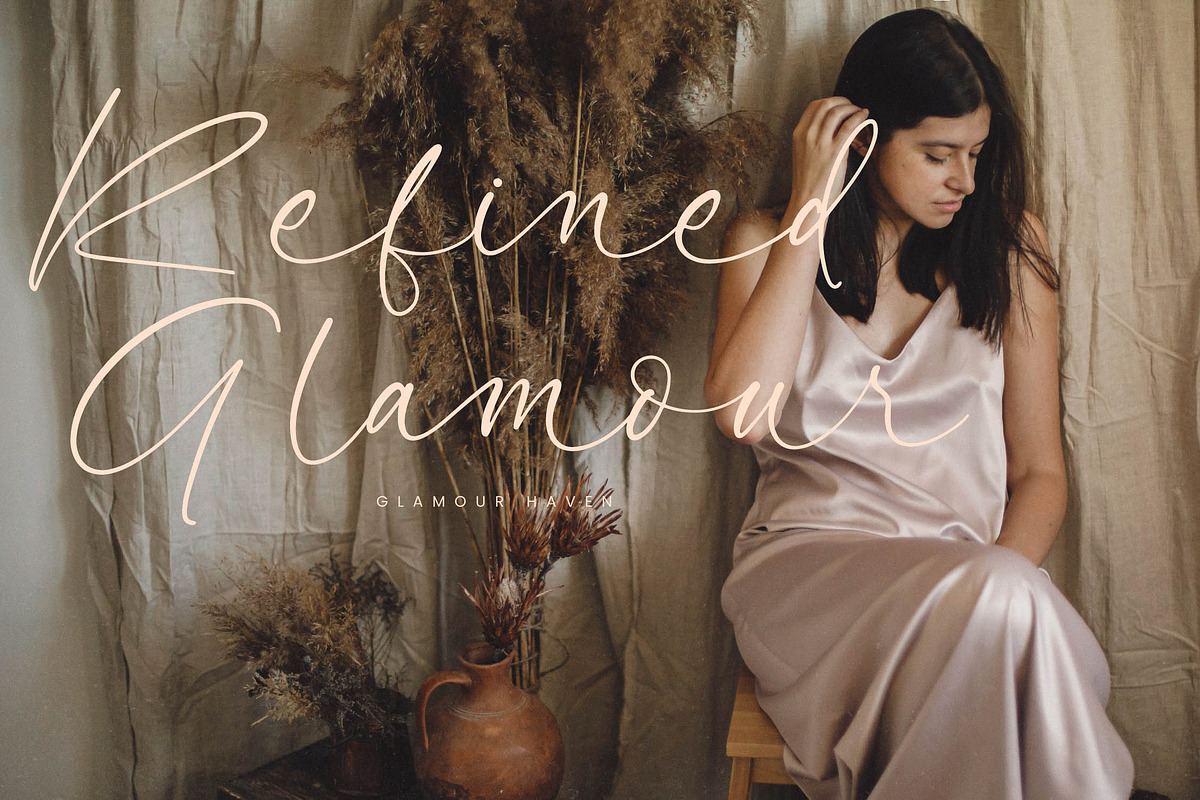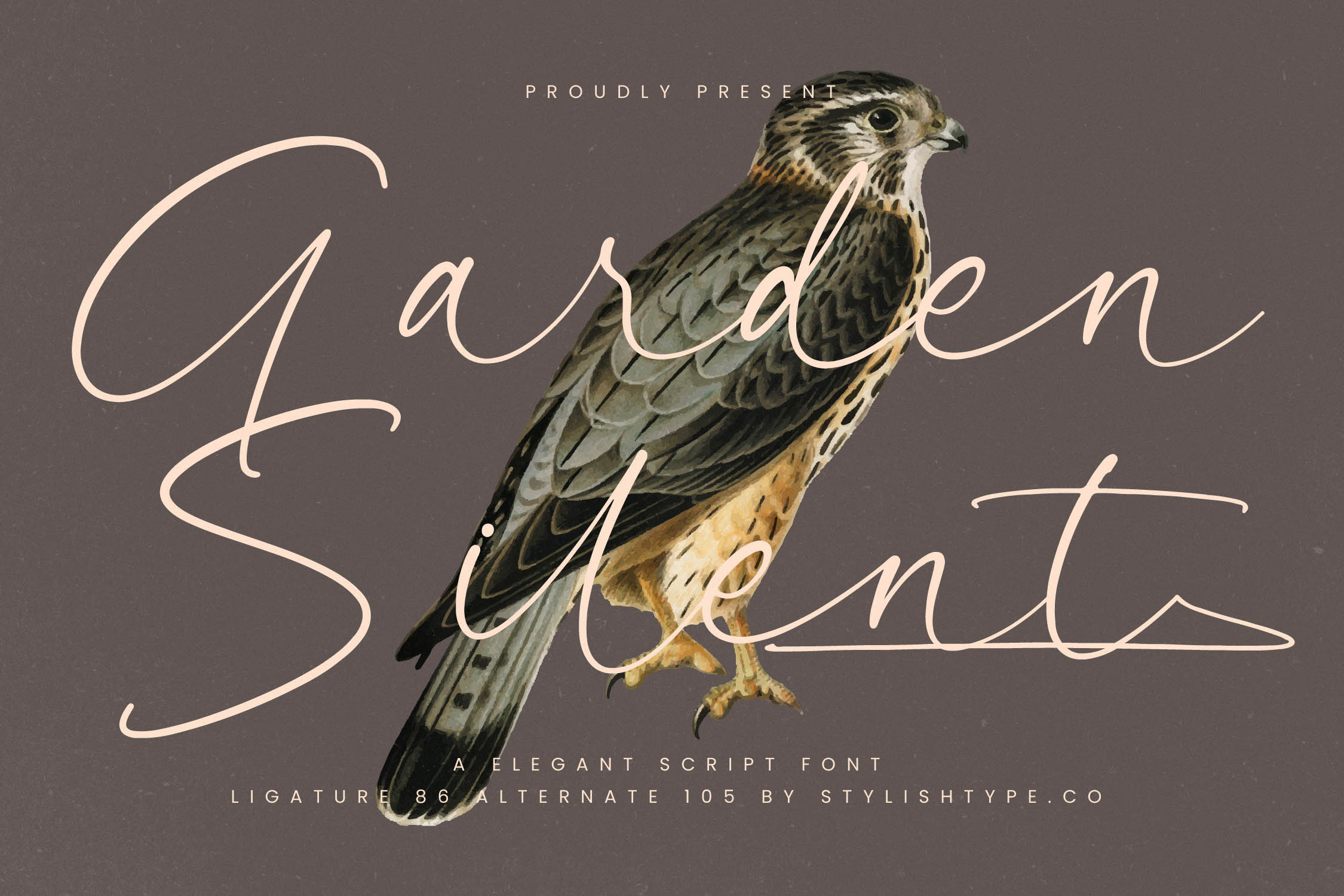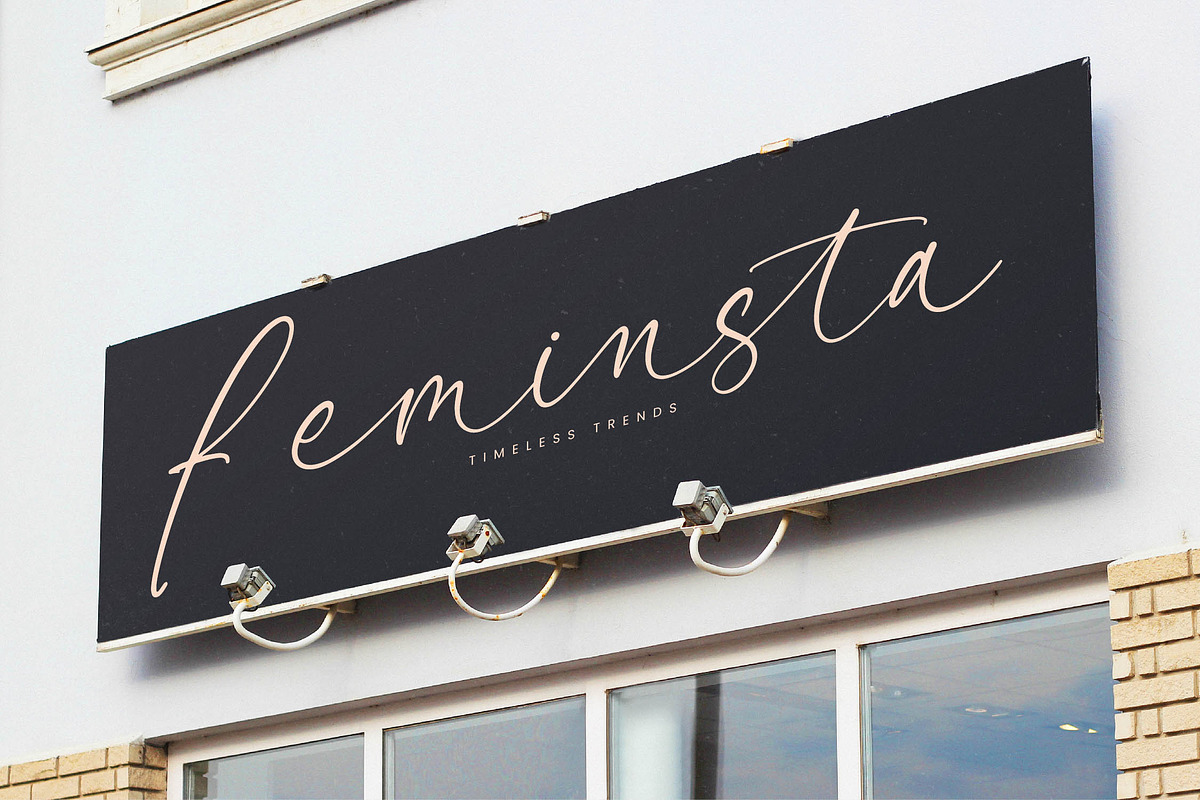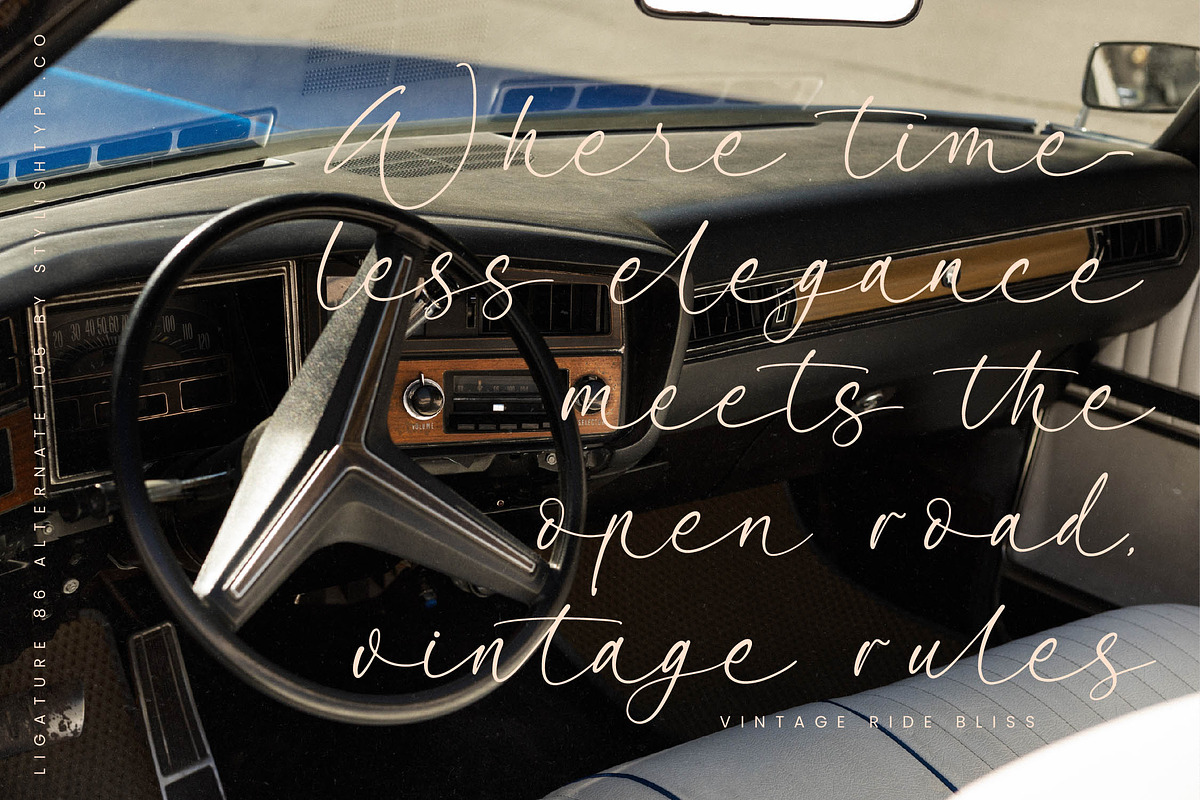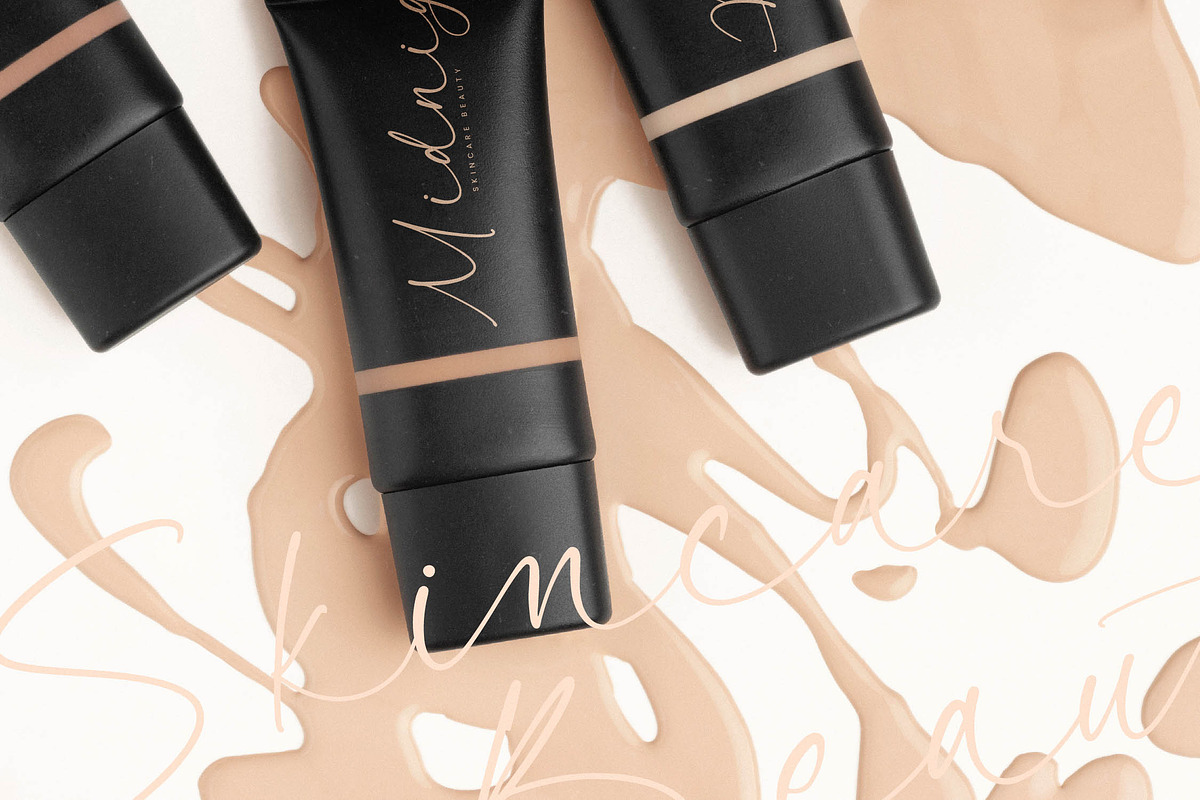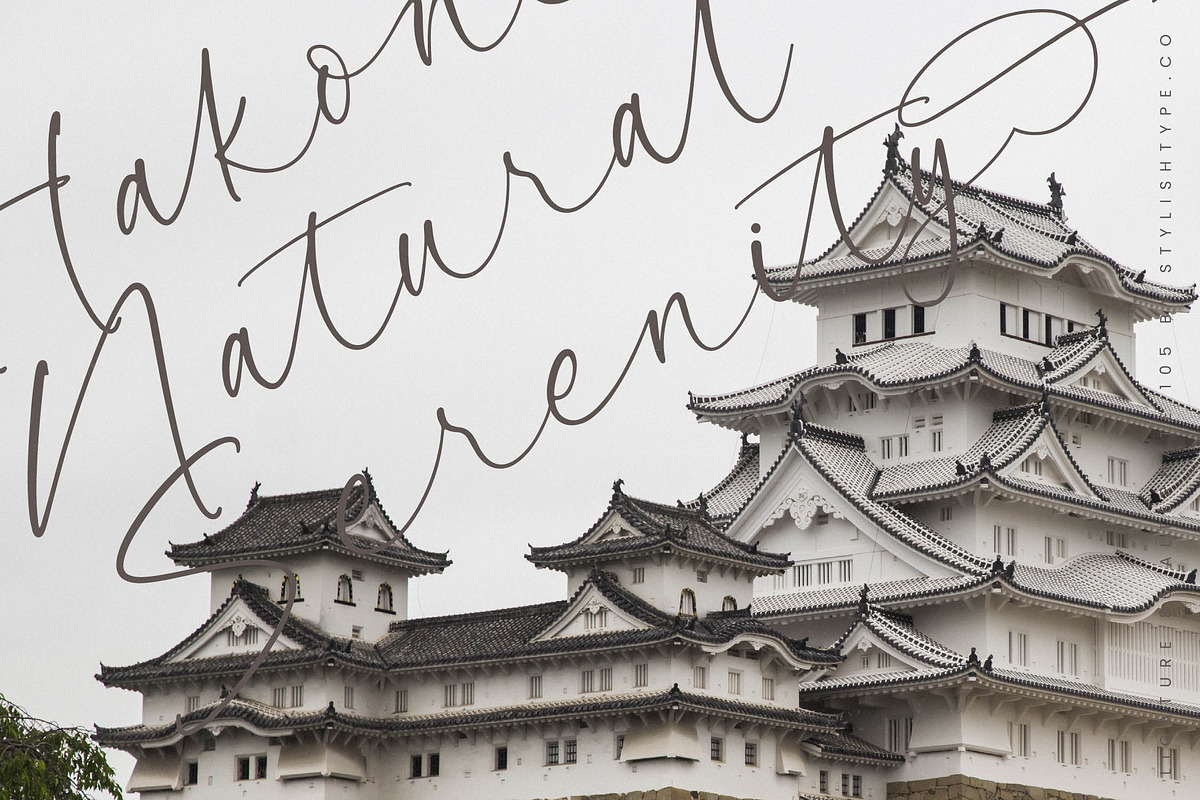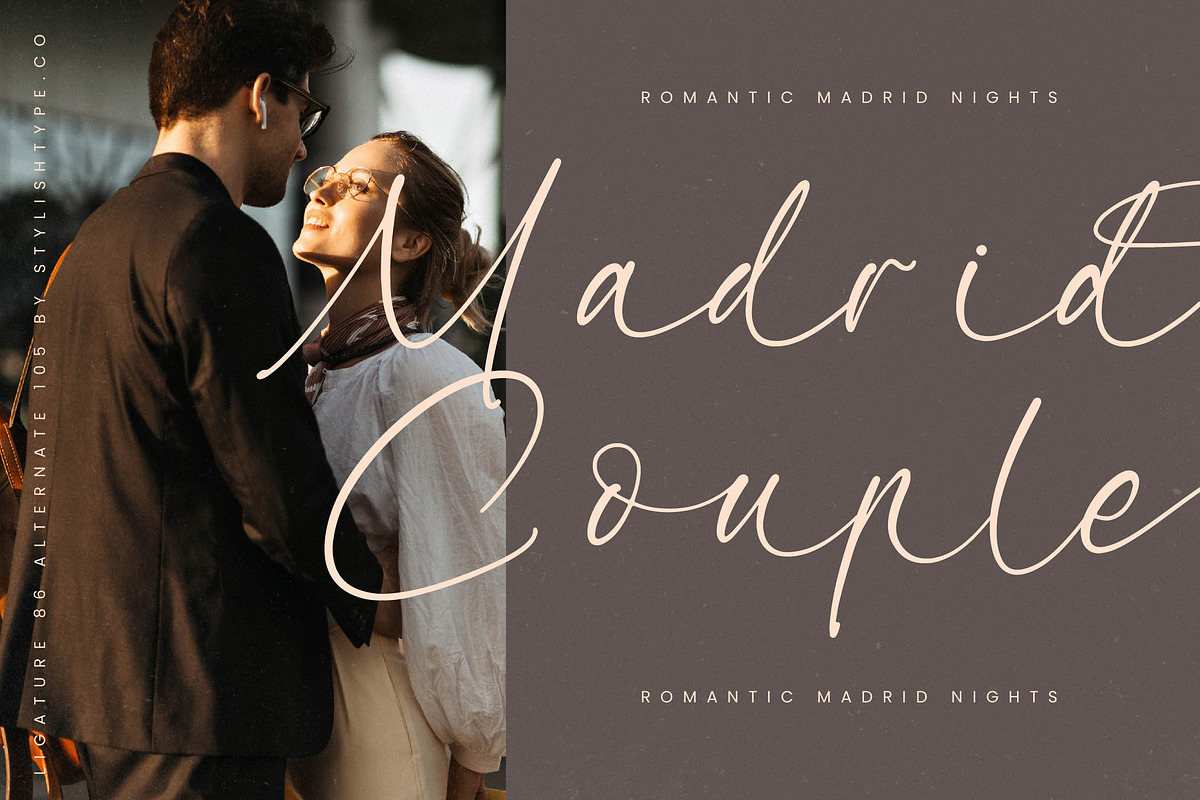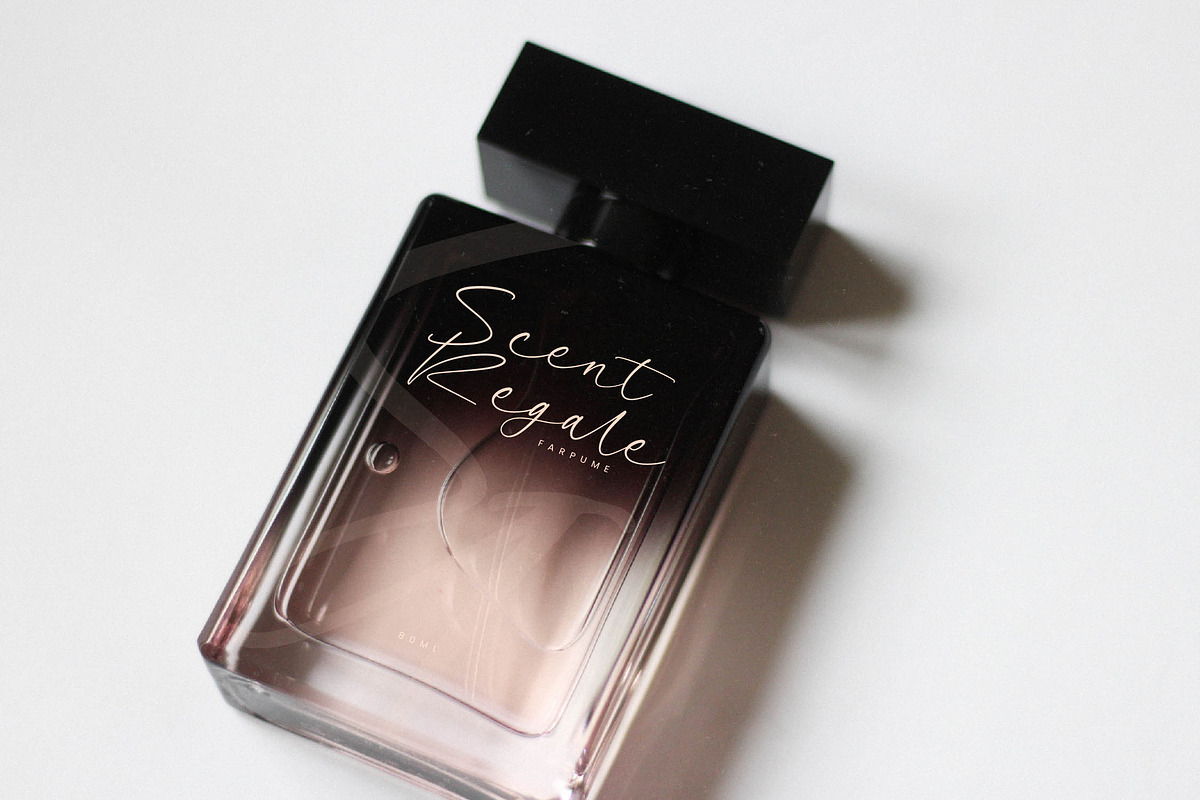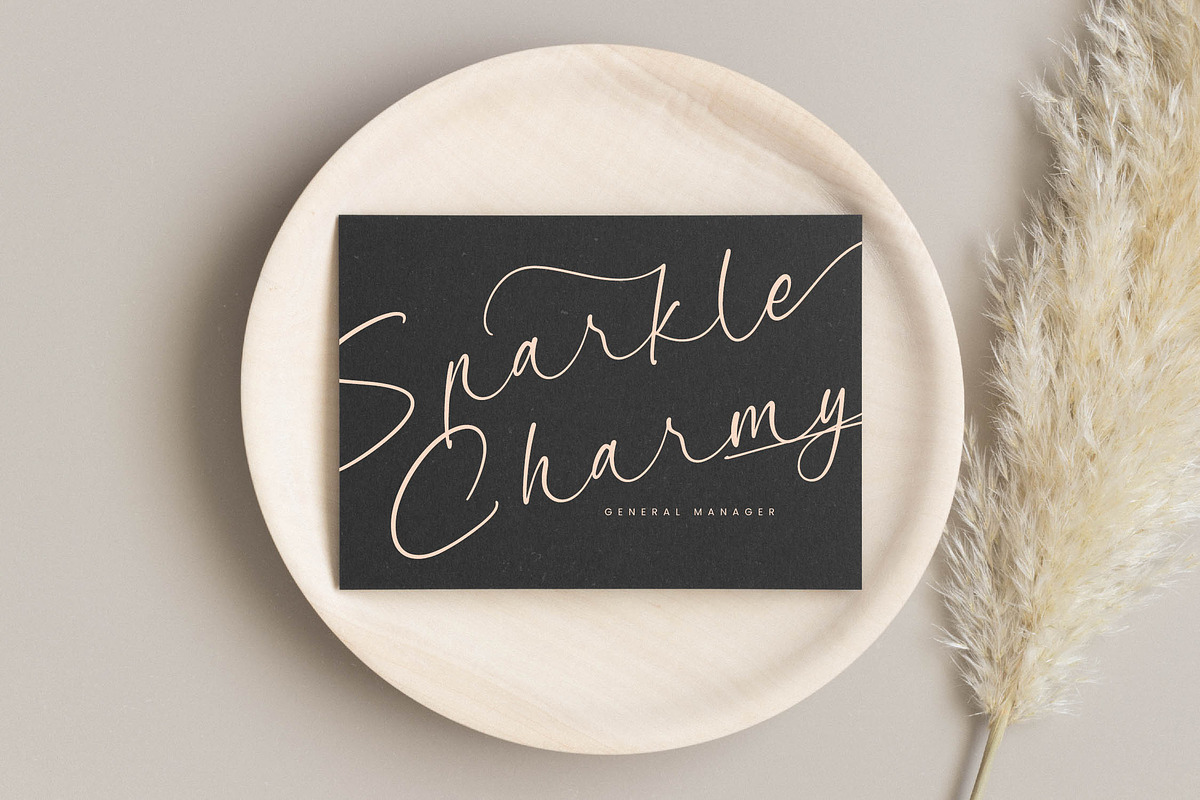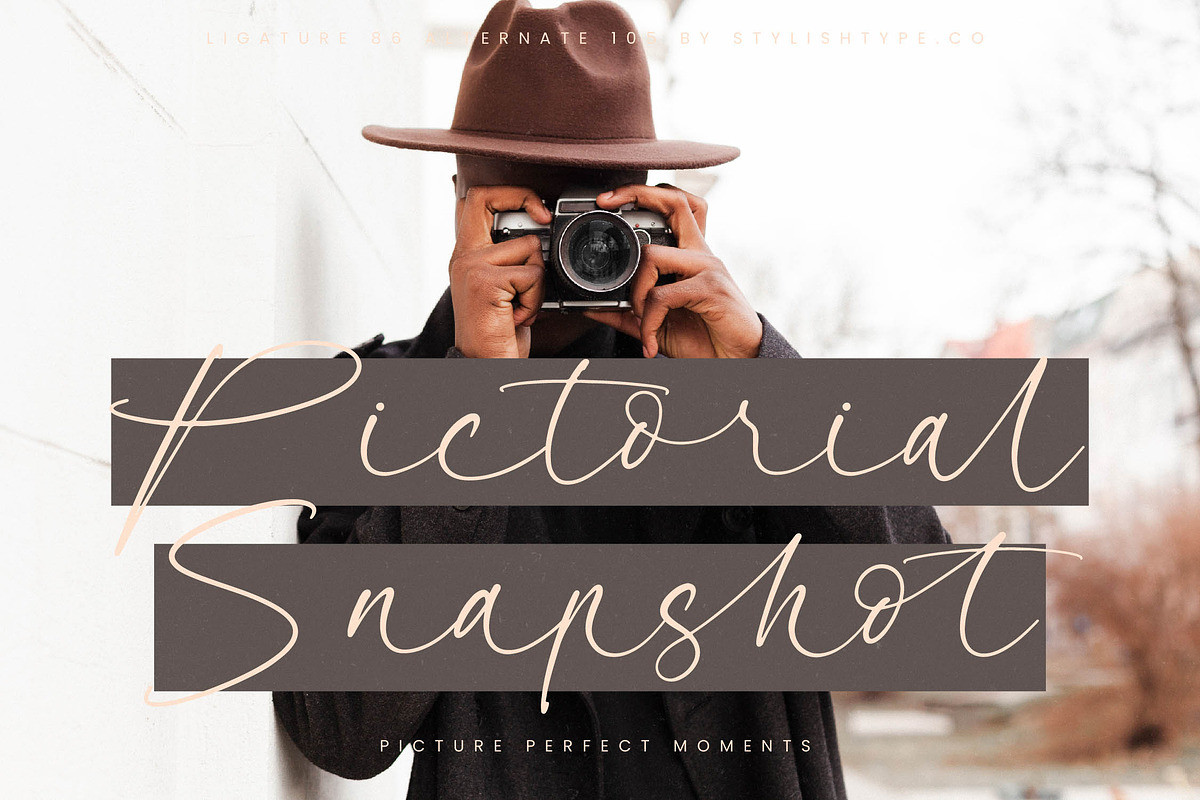
Garden Silent Elegant Script Font
Garden Silent - Elegant Script Font , Step into a world of quiet sophistication with Garden Silent, a typeface designed to whisper elegance into every creative composition. This font captures the delicate balance between natural movement and refined artistry, making it an essential tool for high-end design.
Inspired by the hushed tones of a secret garden and the graceful flight of a falcon, this script draws its soul from the fluid lines of traditional calligraphy. Every stroke is crafted to evoke a sense of timelessness and organic beauty, grounding your projects in a serene atmosphere.
The visual personality of this typeface commands attention through its effortless flow and refined weight, functioning as a modern serif display alternative that brings warmth to luxury typography. It delivers a high-contrast serif sensibility within a handwritten form, serving as a premier editorial font for projects requiring significant branding impact.
Aligning perfectly with the current modern serif trend for more expressive and human-centric design, this script stands alongside the best editorial display fonts in today's market. Its character-driven typography ensures that your work feels bespoke and handcrafted, moving away from sterile digital aesthetics.
This versatile typeface is the ideal choice for creating a memorable logo design or establishing a cohesive visual identity for high-end branding. It excels in an editorial layout, adds a touch of class to premium packaging, and is the gold standard for wedding stationery or the fast-paced world of high fashion.
To ensure maximum creative freedom, the font includes a vast library of ligatures and unique alternates that allow for a truly custom look. With beautiful swashes that extend the reach of your words, it also offers full multilingual support and a comprehensive set of international characters for global reach.
- Ligature 86 Alternates 105 & Swashes